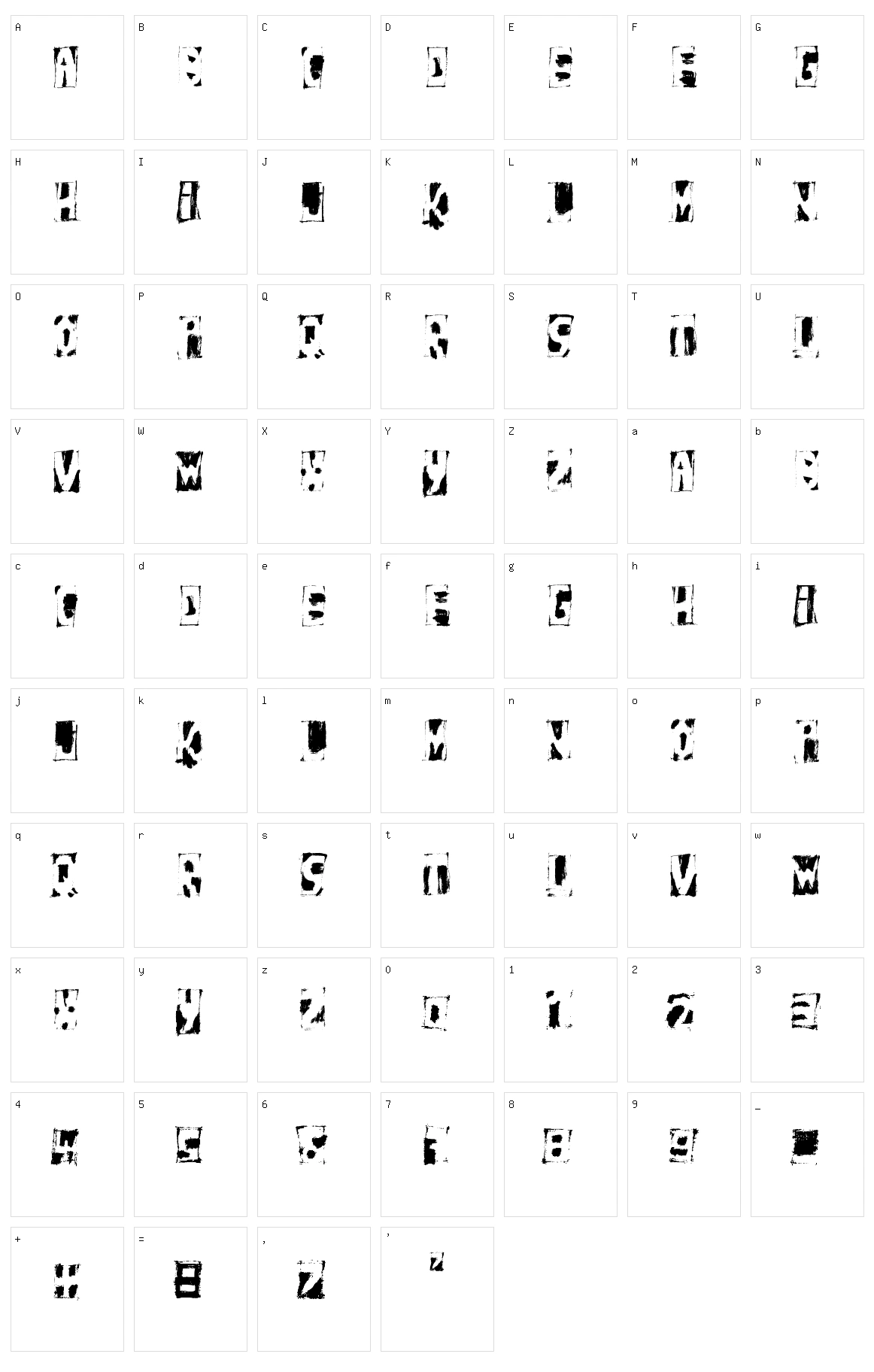
The free font HandNegativ is carefully designed by Antoine Derouineau, showcasing a thoughtful balance of creativity and usability and falls under the Destroy font style. When you download the ZIP file, it contains only 194.69 KB of font files, making it lightweight and quick to download. Please review the license details below to understand permitted usage and distribution rights. If license information is not available, we recommend using this font for personal projects only or contacting the author directly for commercial usage permissions.